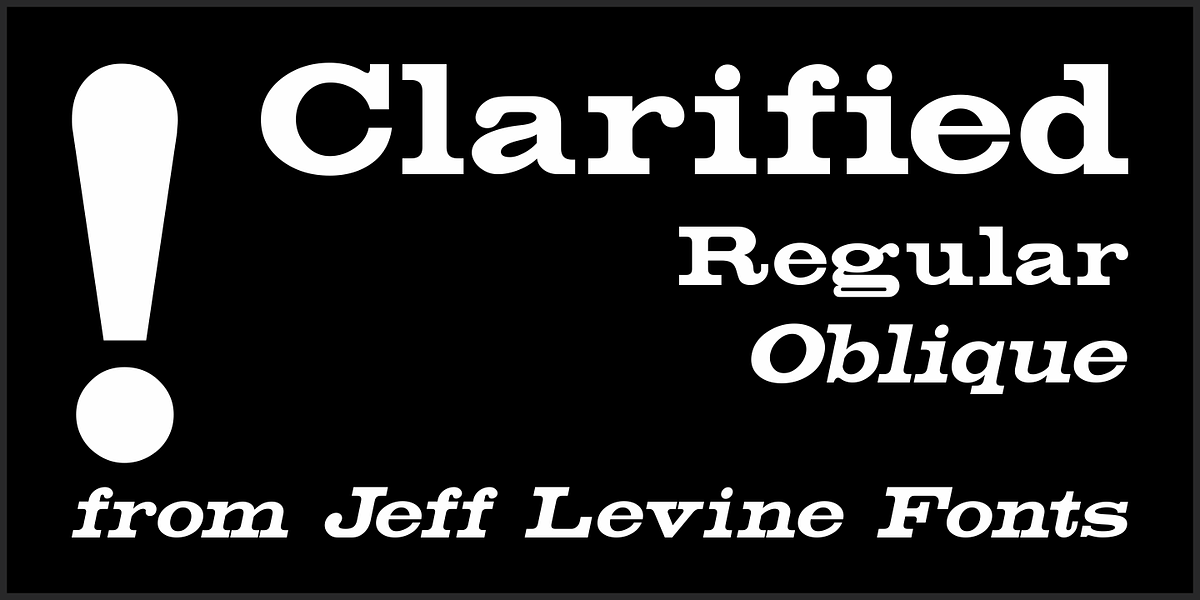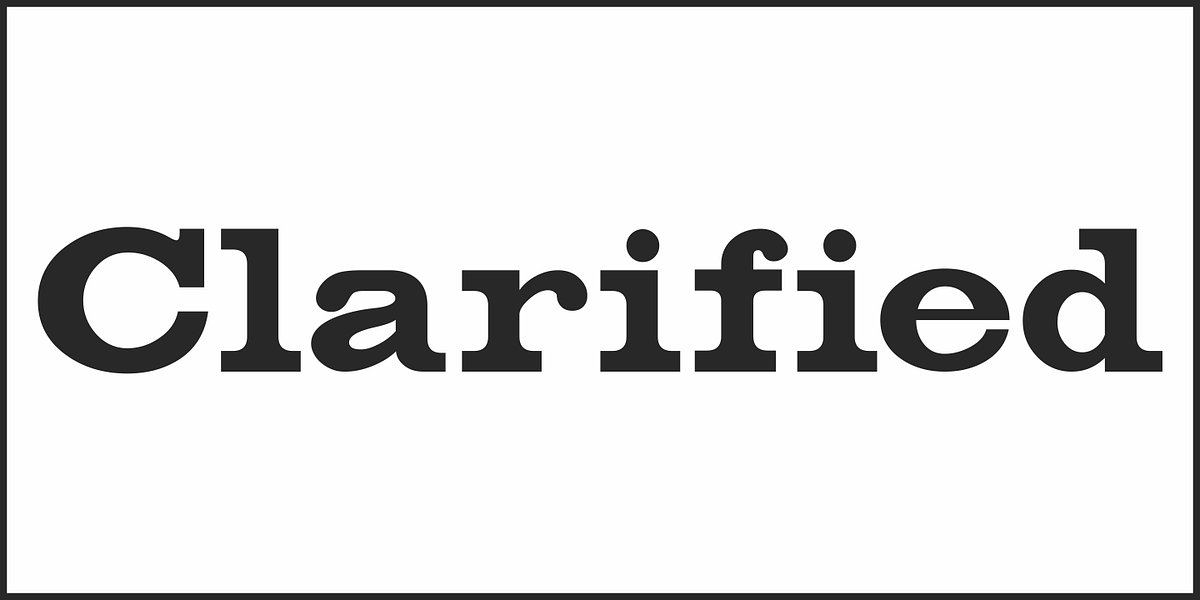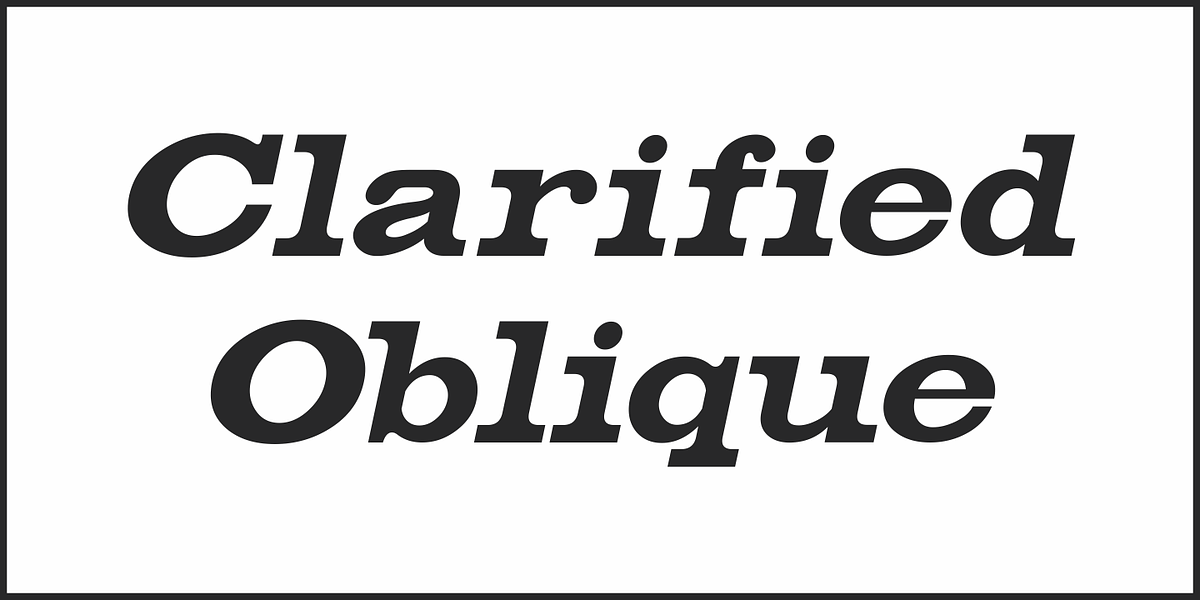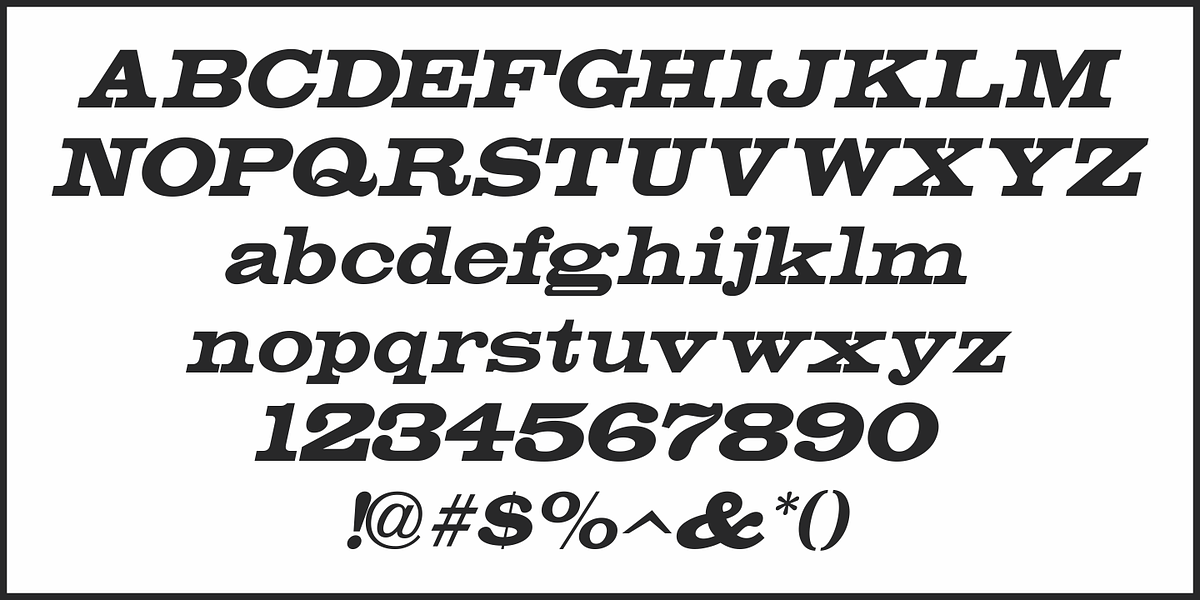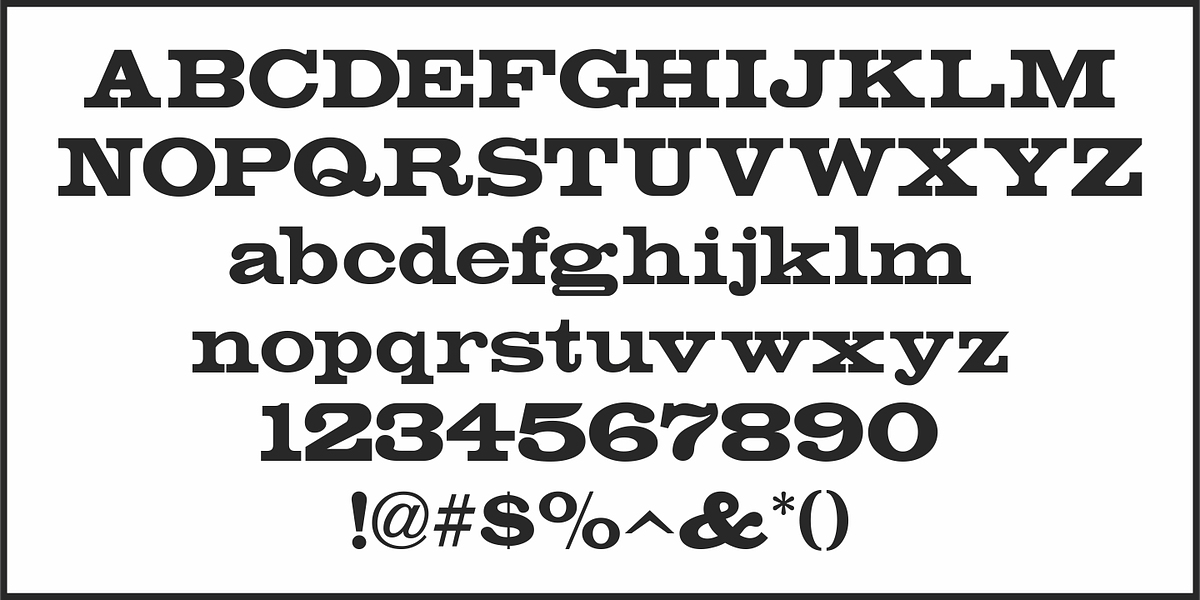
Clarified JNL
Based on William H. Page’s Clarendon Extended wood type from the 1800s, Clarified JNL is digitally available in both regular and oblique versions.
In the days of wood and metal type, foundries often made changes to an existing design to make their font more unique and different from their competitors.
Clarified JNL is different from Clarenwood JNL (which is partially based on another wood type Clarendon and features many alternate letter forms).